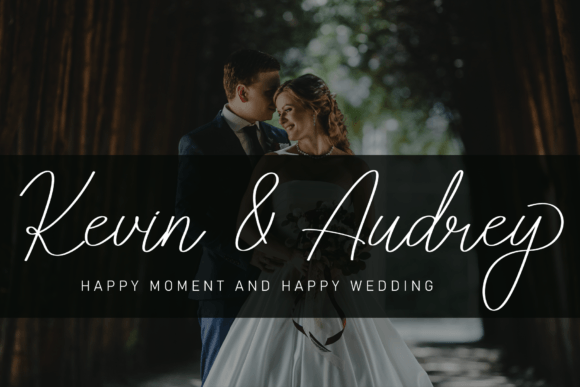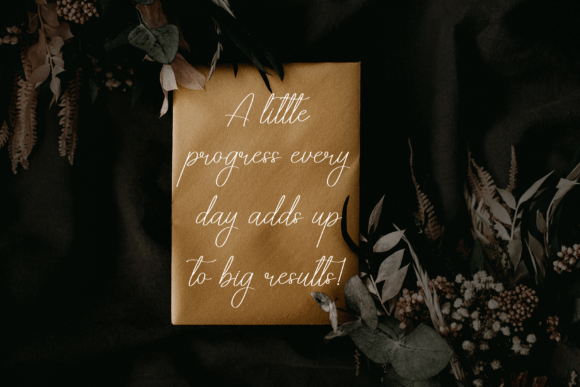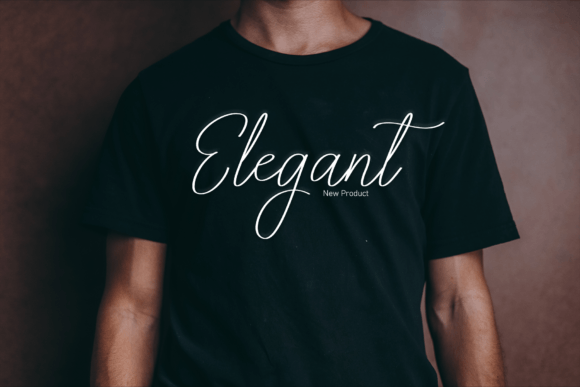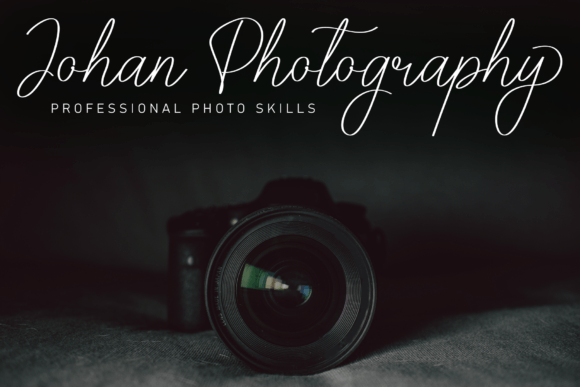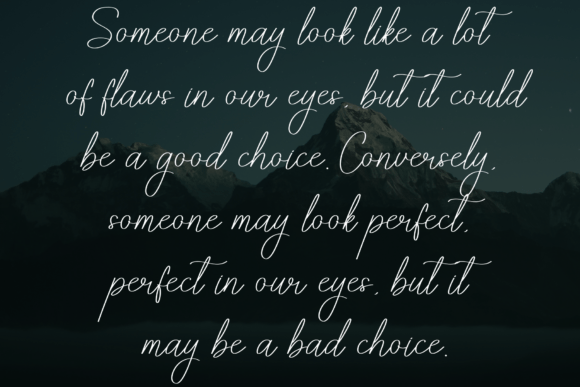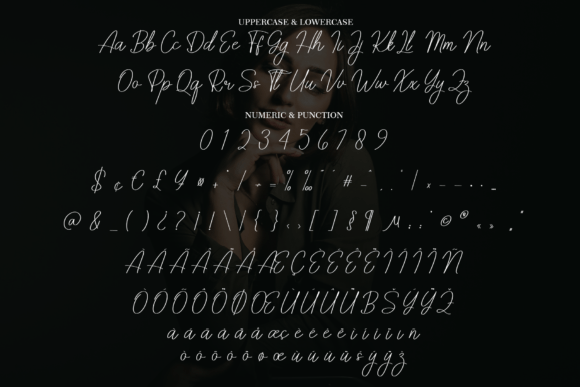
The Perfect Script for Your Masterpiece: Amelia Signature Font
As designers, we’ve all been there – staring at a blank canvas, trying to find the perfect combination of words and style to convey our message. The moment of truth arrives when we decide on the font that will set the tone for our entire design. For many, it’s the handwritten touch that makes all the difference.
Enter Amelia Signature Font, a sweet and friendly handwritten font that adds a personal touch to any design. Whether you’re crafting wedding invitations, birthday cards, or social media graphics, this font is sure to bring a smile to your audience’s face. Its cute and fun vibe makes it an ideal choice for designers looking to add a touch of personality to their work.
With Amelia Signature Font, you can elevate your designs and leave a lasting impression on your viewers. Its versatility and charm make it a valuable asset for any designer looking to take their work to the next level.
Amelia Signature Font Key Features
- Font Family: Amelia, Amelia Script, Amelia Display, Amelia Initials, Amelia Signature
- 5 unique font styles to cater to different design needs
- Unique Characteristics: Handwritten, Brush Script, Signature, Luxury, Elegant
- Distinctive and sophisticated design for high-end branding
Amelia Signature Font Review
I recently had the chance to work with the Amelia Signature Font, and I must say it’s a stylish addition to any design project. ✨ The elegant script font is perfect for creating a sophisticated and luxurious look. I particularly enjoyed using it for branding and invitation designs.
The Amelia Signature Font comes in a variety of styles, from bold and playful to delicate and refined. ✨ This versatility makes it a great choice for a wide range of projects, from weddings to corporate events.
While I loved working with the Amelia Signature Font, there are a few limitations to consider:
- ⚠️ The font may not be suitable for large blocks of text, as it can be difficult to read at smaller sizes.
- ⚠️ Some of the styles may not be compatible with all operating systems or devices.
- ⚠️ The font may require additional styling or formatting to achieve the desired look.
Overall, I was impressed with the Amelia Signature Font’s style and versatility. While it may have some limitations, it’s a great choice for designers looking to add a touch of elegance to their projects. With some careful styling and formatting, the Amelia Signature Font can be a powerful tool in any designer’s toolkit.
Tips for Getting the Most Out of the Amelia Signature Font
Use the Amelia Signature Font for titles, headings, and quotes to add a touch of elegance to your designs. Experiment with different font sizes and styles to create visual interest. Combine the font with other design elements, such as images or graphics, to create a cohesive look.
The Amelia Signature Font is ideal for:
– Luxury product packaging and labels
– High-end business cards and stationery